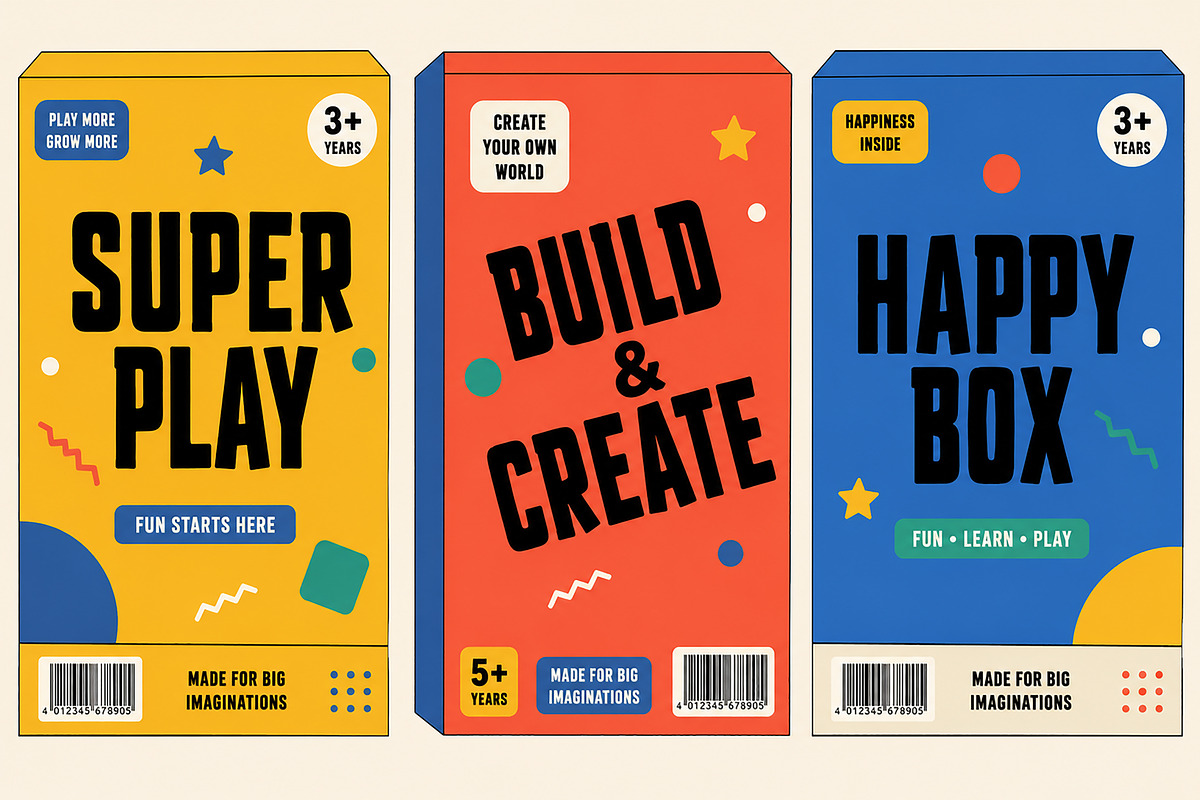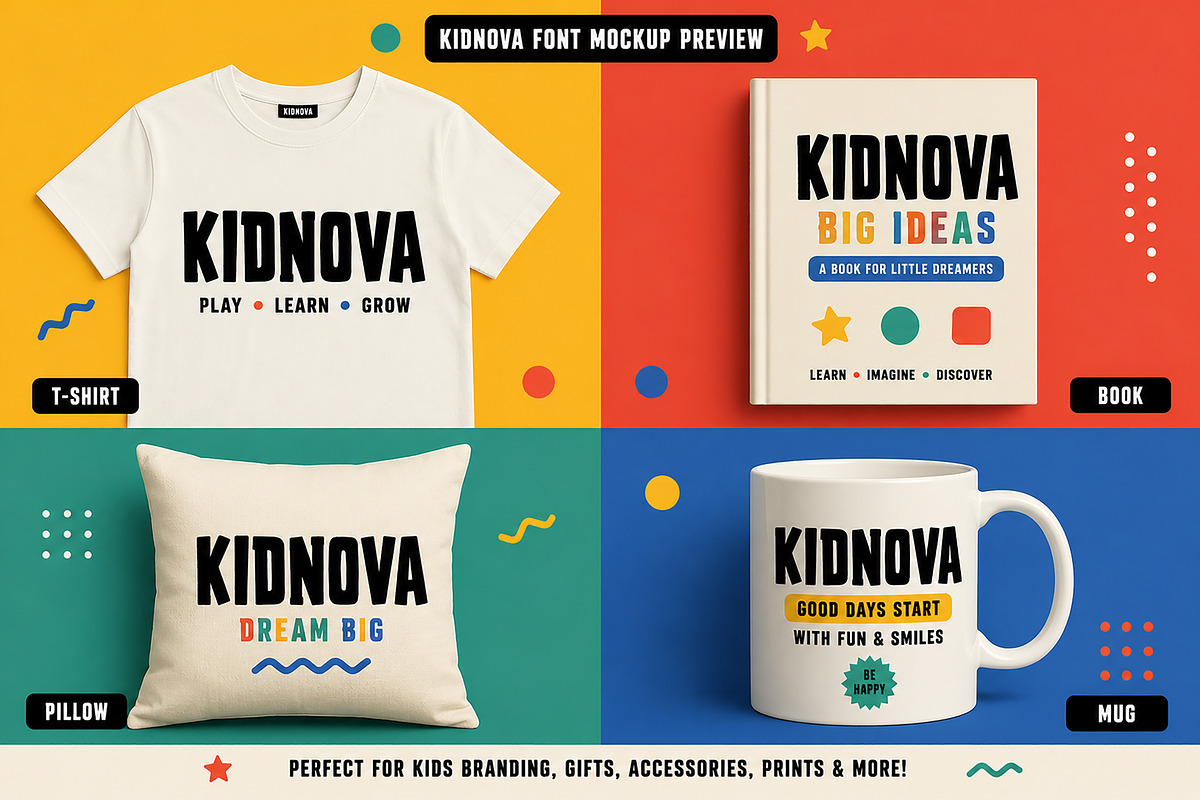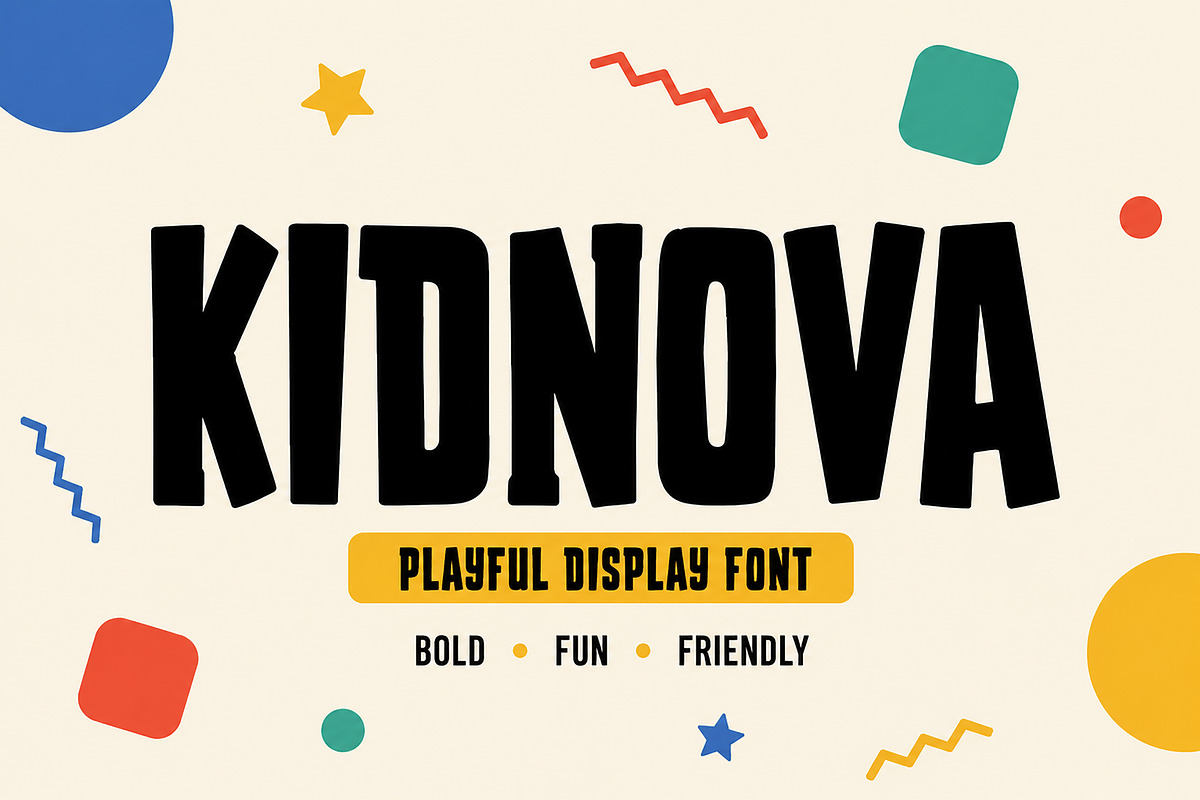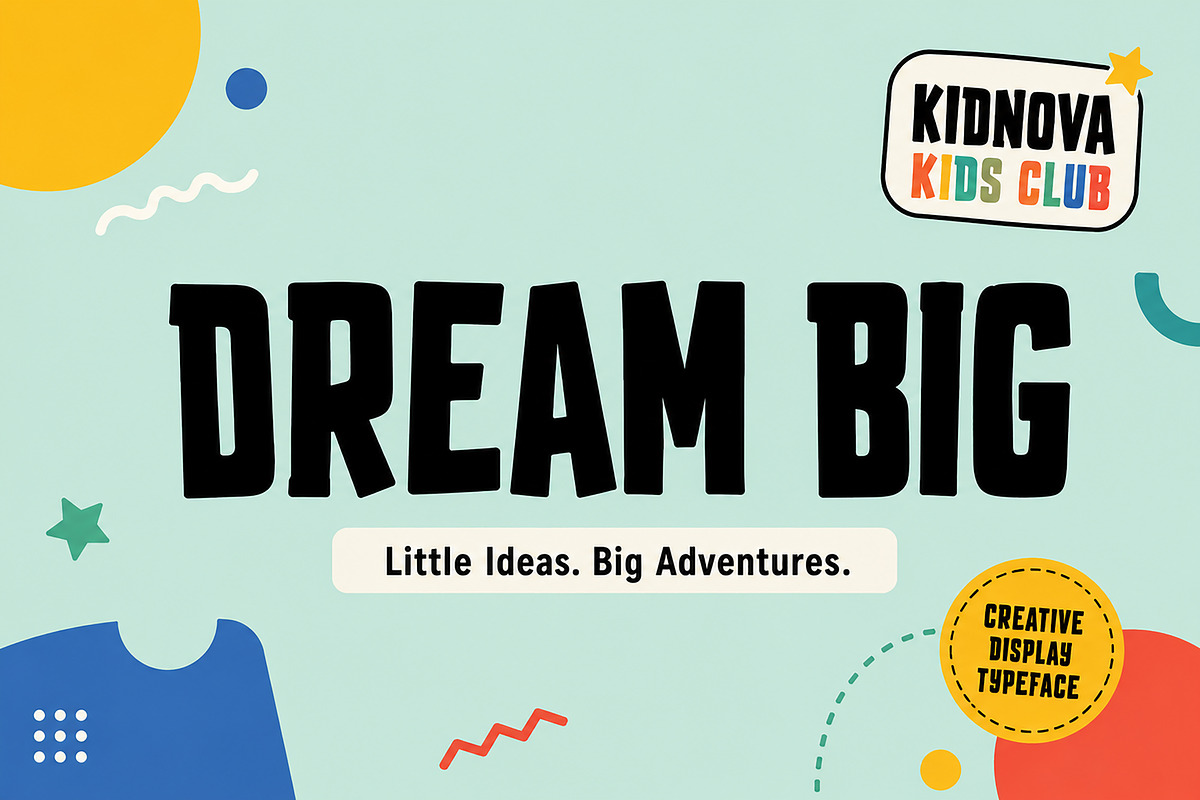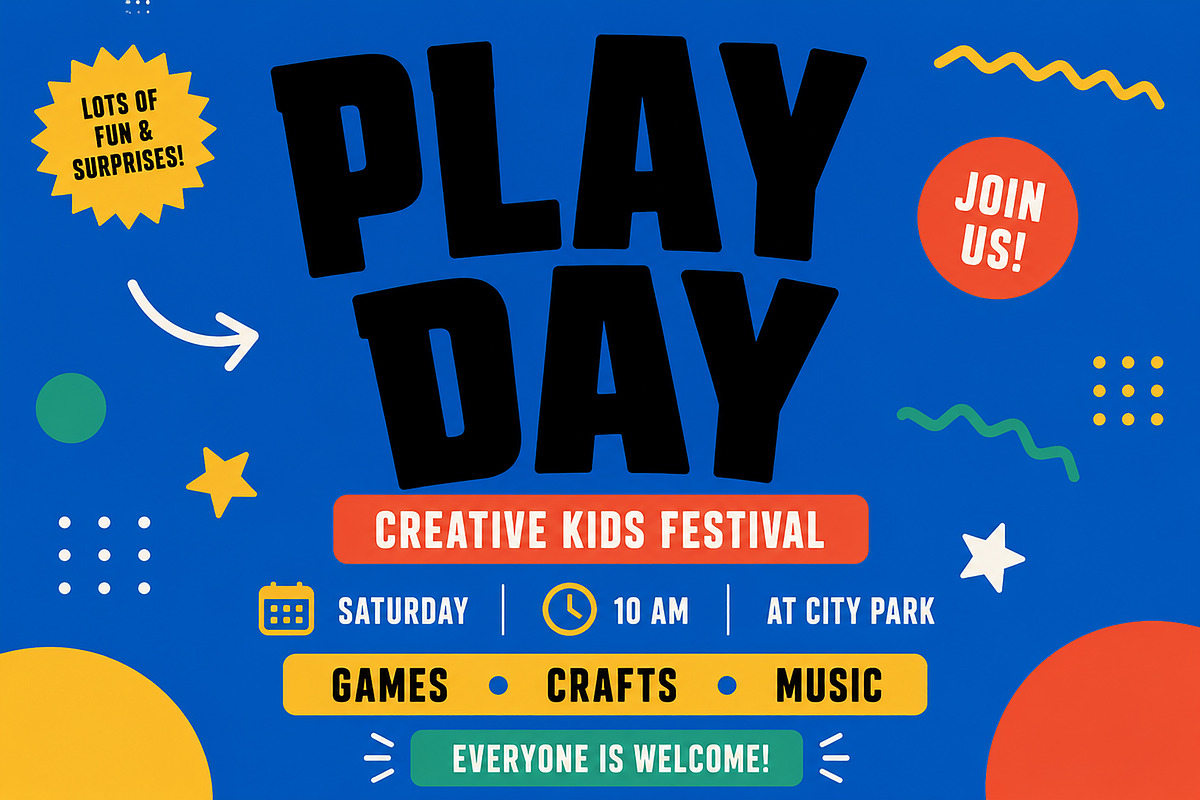
Kidnova
KIDNOVA – Playful Display Font
Kidnova is a bold, playful display font designed to bring joy, creativity, and personality to every project. With its chunky letterforms, soft irregular shapes, and friendly character, Kidnova is perfect for children's brands, toy packaging, posters, book covers, classroom materials, party invitations, and fun merchandise.
Its eye-catching style makes headlines stand out while keeping a warm and approachable feel. Whether you're creating a playful logo or a colorful packaging design, Kidnova helps your typography leave a lasting impression.
Perfect for designers, illustrators, educators, and creative entrepreneurs looking for a fun, bold typeface with a modern personality.
Kids Branding
Toy Packaging
Children's Book Covers
Preschool & Kindergarten Designs
School Event Posters
Birthday Invitations
T-Shirt Designs
Stickers & Labels
YouTube Thumbnails
Logos & Brand Identity
Greeting Cards
Educational Materials
Merchandise Design
Bold Display Typeface
Playful & Friendly Style
Easy to Read
Uppercase Letters
Punctuation Included
Numbers Included
Perfect for Print & Digital Use